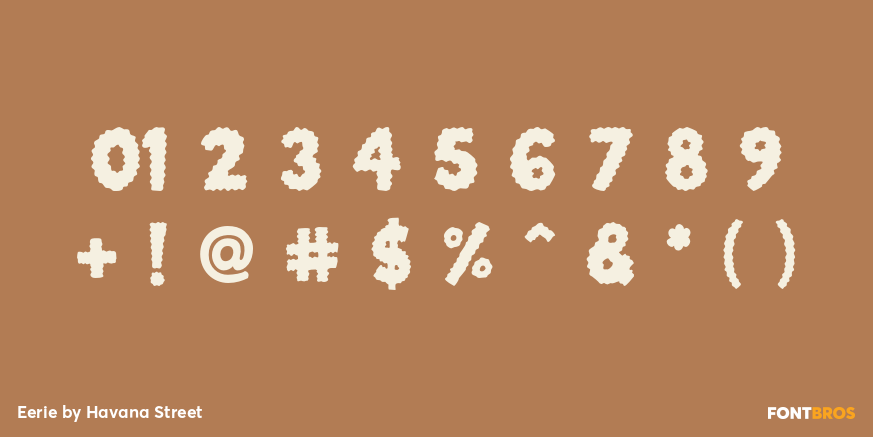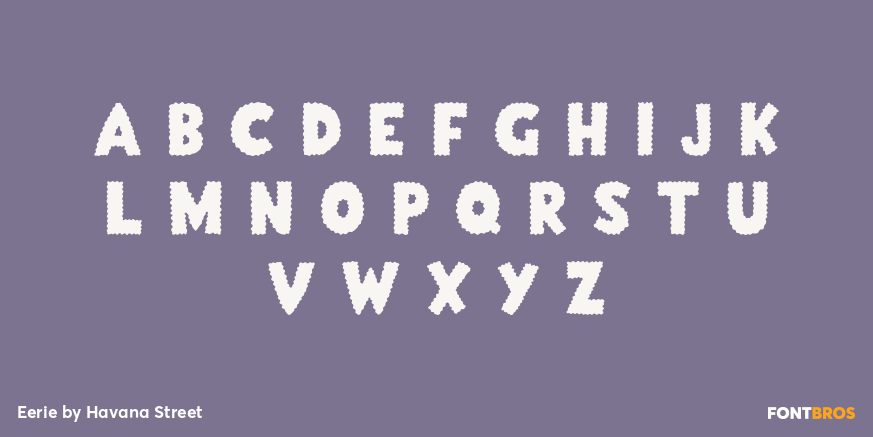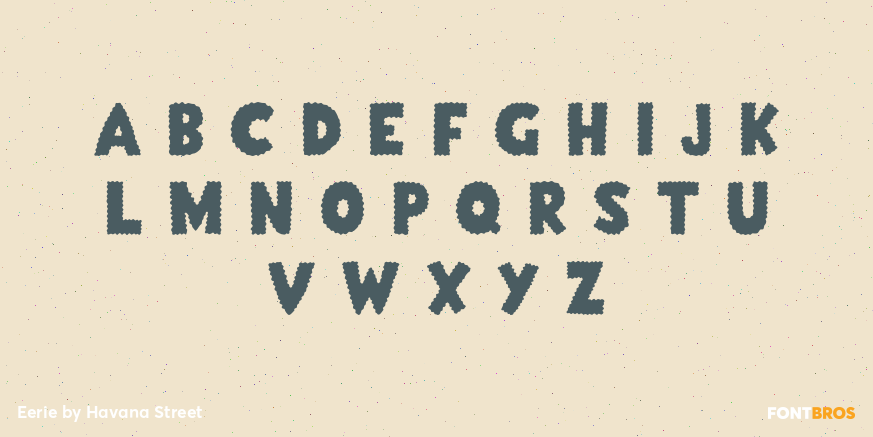
Eerie
Font Family by Havana Street
Eerie is sure to bring the ghosts and ghouls out of your computer for some spooky fun! Perfect for Halloween, haunted houses, or when you need that classic creepy look!
Previously available only from the hand of the artist, Havana Street has brought original 1940s style Hollywood hand-lettered, movie poster-type to your keyboard. Now you too can adorn your creations with these wonderfully gaudy fonts.